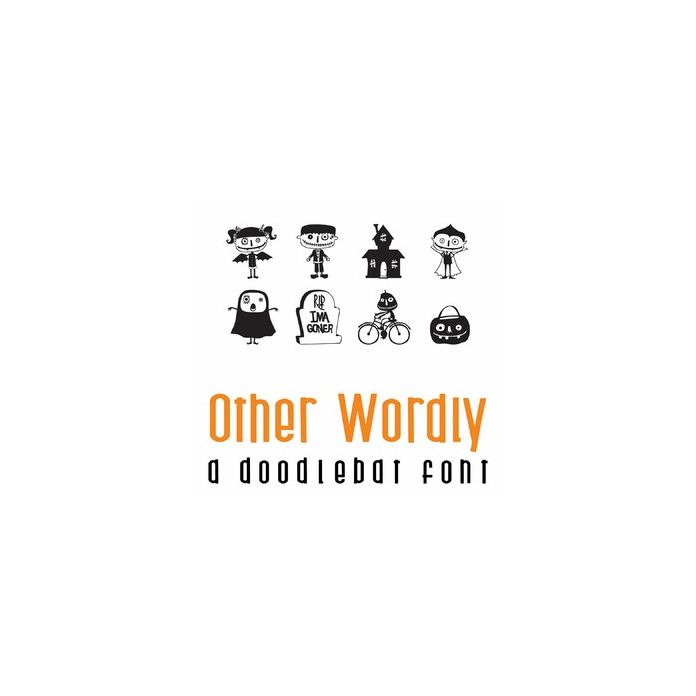
This fun doodlebat font features 26 fun whimsical monsters and Halloween items. Perfect for cards, gifts, decor, crafts, scrap book pages, planner stickers and more!